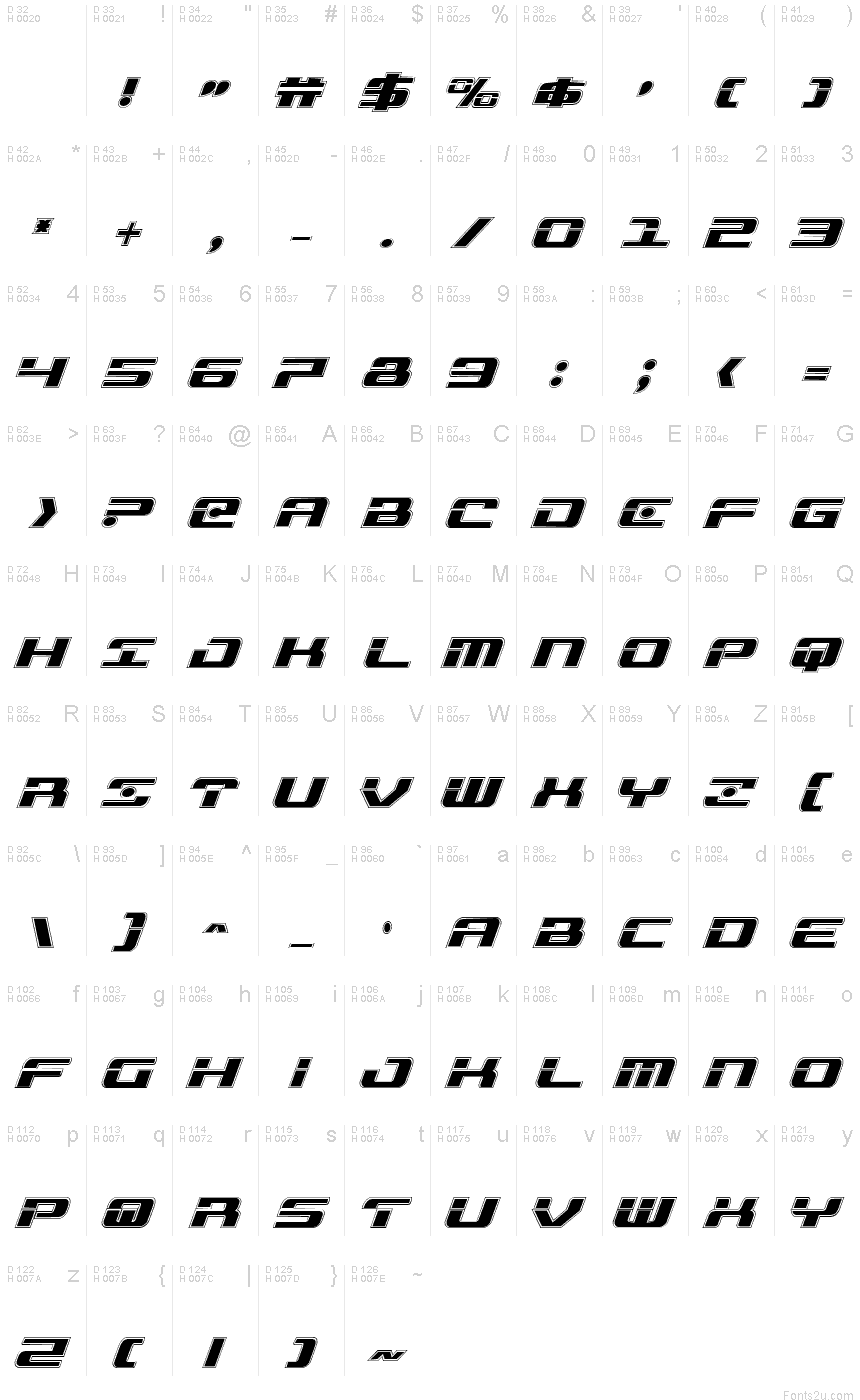
Troopers Academy Italic by Daniel Zadorozny of Iconian Fonts is a free futuristic outlined display font with a forceful motorsport slant. Its broad letters combine clipped corners, deep horizontal cuts, and rounded interior shapes. The doubled contour gives the face a crisp decal-like finish.
Racing teams, esports brands, and science-fiction events could use its speed-driven profile for logos and campaign graphics. On game packaging or action-themed merchandise, the inset lines can become part of a larger badge or vehicle-style product identity.
Troopers Academy Italic